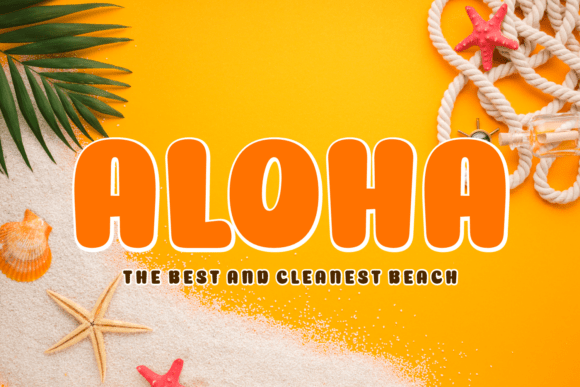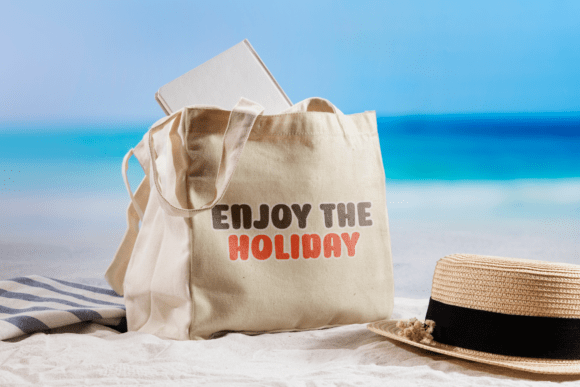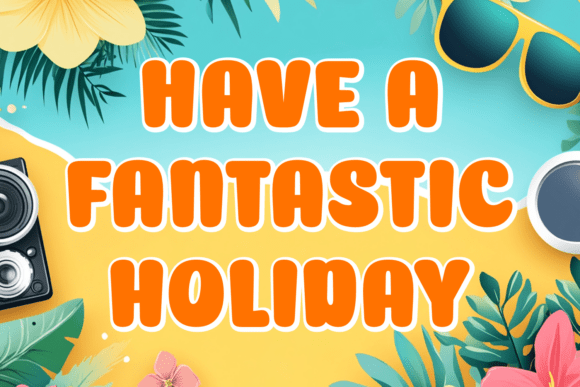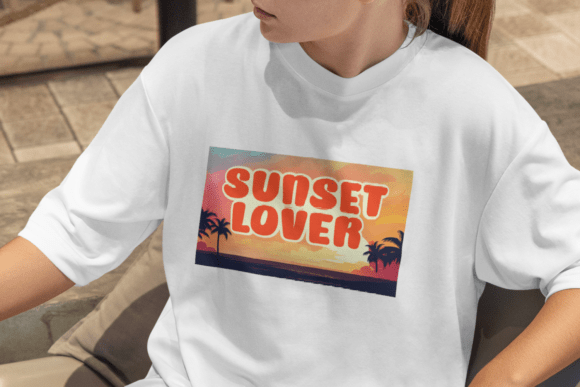
Introducing Chasing Summer Font: A Retro Revival for Your Designs
Are you ready to take a trip down memory lane and inject a dose of nostalgia into your projects? Look no further than the “Chasing Summer” font, a beautifully crafted retro-style font that embodies the carefree spirit of summers past. With its handcrafted characters and whimsical charm, this font is perfect for designers and crafters seeking to add a touch of vintage flair to their work.
A Nostalgic Ambiance at Your Fingertips
Each character in the “Chasing Summer” font has been painstakingly handcrafted to evoke a sense of nostalgia and playfulness. The result is a font that is both versatile and eye-catching, making it ideal for a wide range of applications, from stickers and T-shirts to posters and invitation cards. Whether you’re looking to create a fun and quirky design or a more artistic and elegant one, “Chasing Summer” is the perfect tool for the job.
The playful and adaptable nature of the “Chasing Summer” font makes it suitable for a vast array of design projects. Here are just a few ideas to get you started:
• Stickers and Labels: Add a touch of summer fun to your stickers and labels with this delightful font.
• T-shirts and Apparel: Create eye-catching and unique designs for T-shirts, tote bags, and other apparel.
• Posters and Prints: Use “Chasing Summer” to create stunning posters, prints, and artwork that evoke a sense of nostalgia.
• Invitation Cards: Make your invitations stand out with this beautiful and whimsical font.
• Wall Décor and Keychains: Add an artistic flair to your wall décor and keychains with this delightful font.
A Font that Seamlessly Integrates Handwritten Nuances
“Chasing Summer” is more than just a font – it’s a tool that allows you to infuse your designs with the nuances of handwritten typography. With its delicate and artistic flair, this font is perfect for designers seeking to add a touch of personality to their work.
Perfect for Nostalgic and Playful Designs
The “Chasing Summer” font is ideal for designs that aim to provoke nostalgia or a playful spirit. With its nod towards yesteryears, this font is perfect for:
• Vintage-inspired designs: Create designs that evoke a sense of nostalgia and timelessness.
• Summer-themed designs: Infuse your summer-themed designs with a carefree and playful spirit.
• Quote designs: Use “Chasing Summer” to create stunning quote designs that add an artistic flair to your work.
A Treasure for Graphic Designers and Crafters
The “Chasing Summer” font is a treasure for any graphic designer or crafter looking to add a touch of summer charm to their projects. With its delightful and decorative design, this font is sure to inspire creativity and bring a smile to your face.
Font Name Chasing Summer Font
Author Ade (7NTypes)
In conclusion, the “Chasing Summer” font is a must-have for designers and crafters seeking to add a touch of nostalgia and playfulness to their work. With its handcrafted characters, whimsical charm, and versatility, this font is perfect for a wide range of design projects. So why wait? Download the “Chasing Summer” font today and start creating designs that evoke a sense of summer fun and nostalgia.